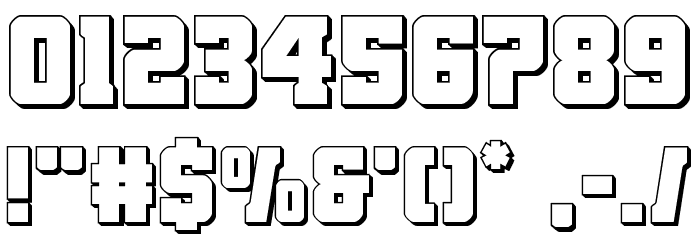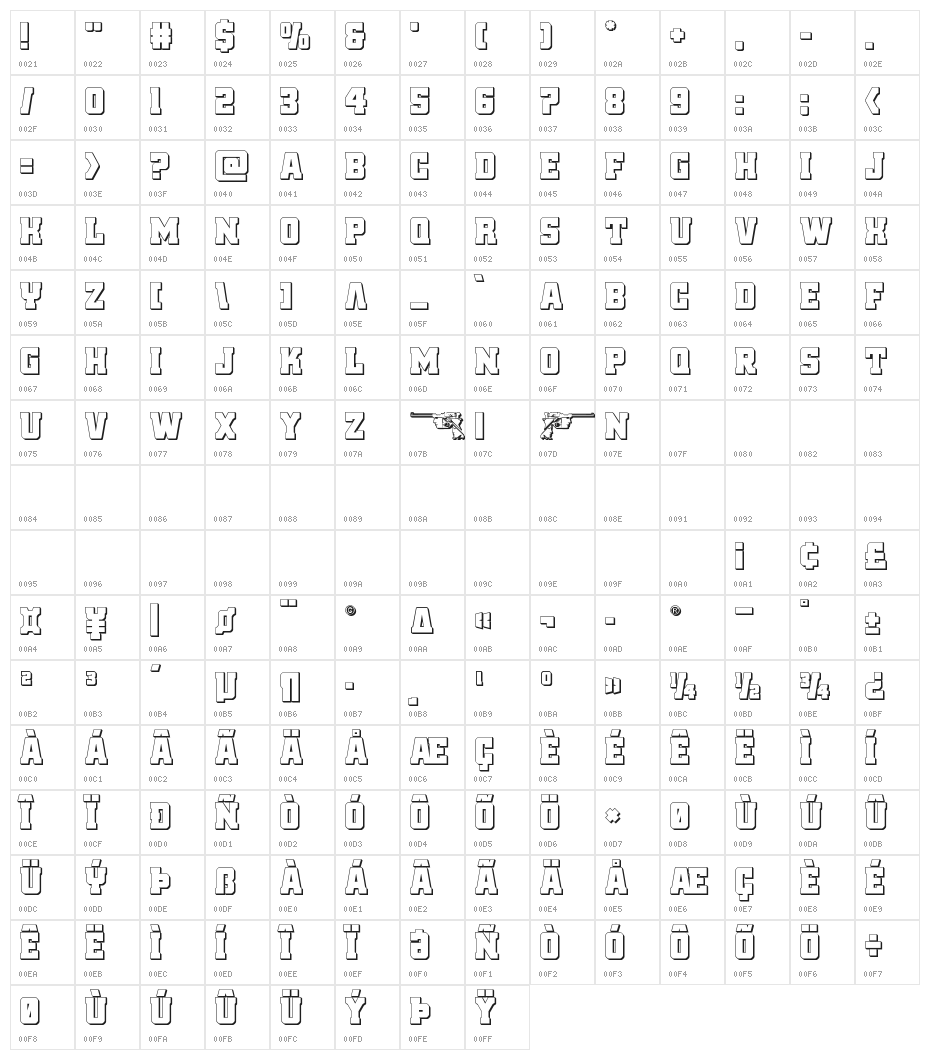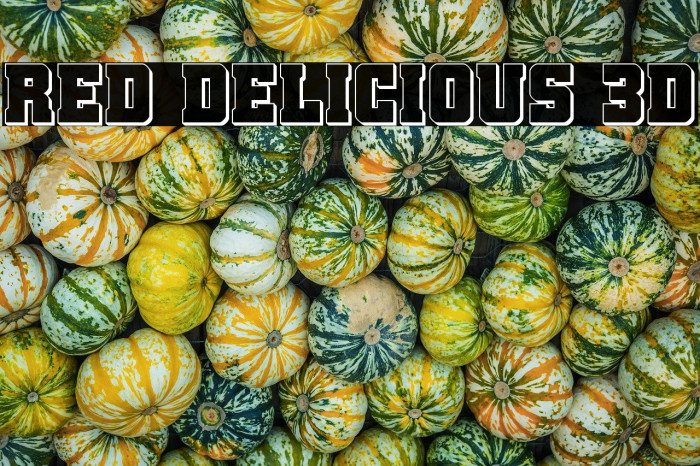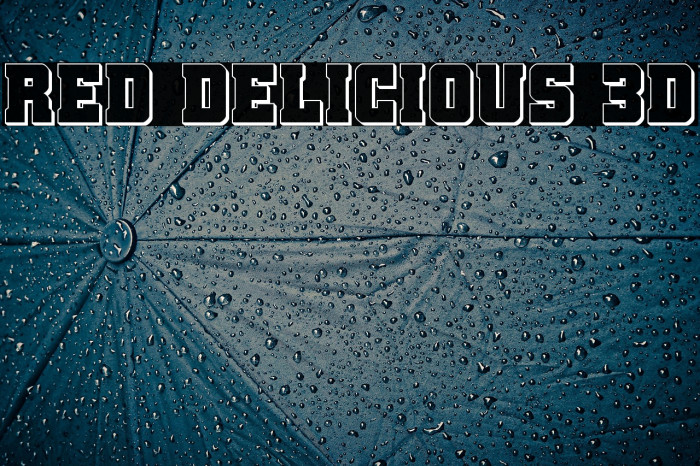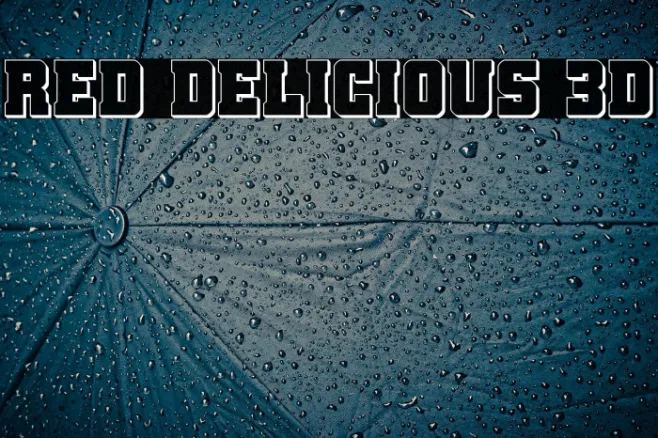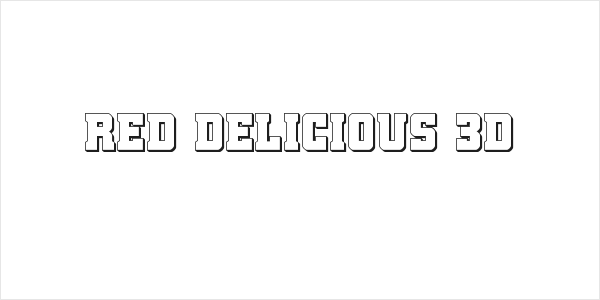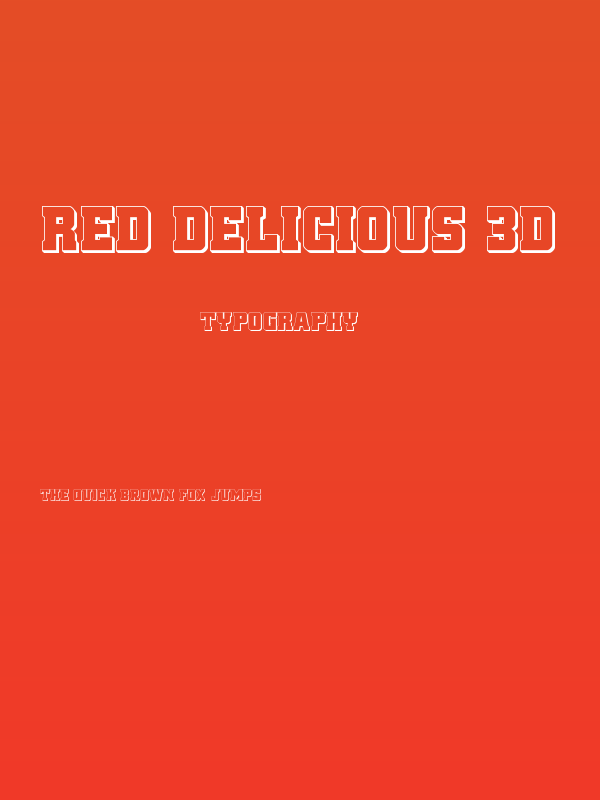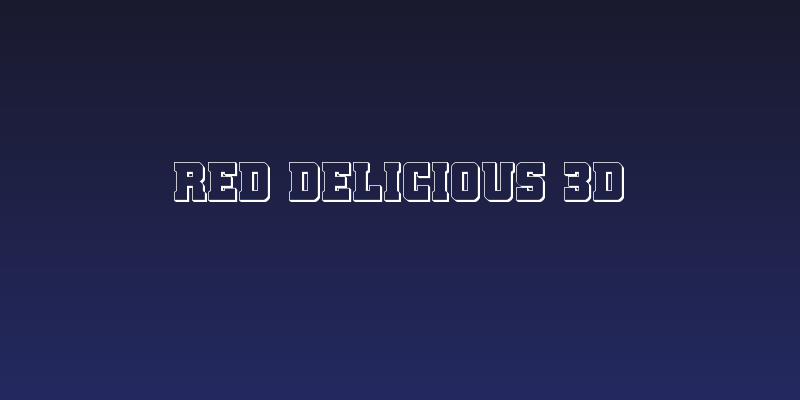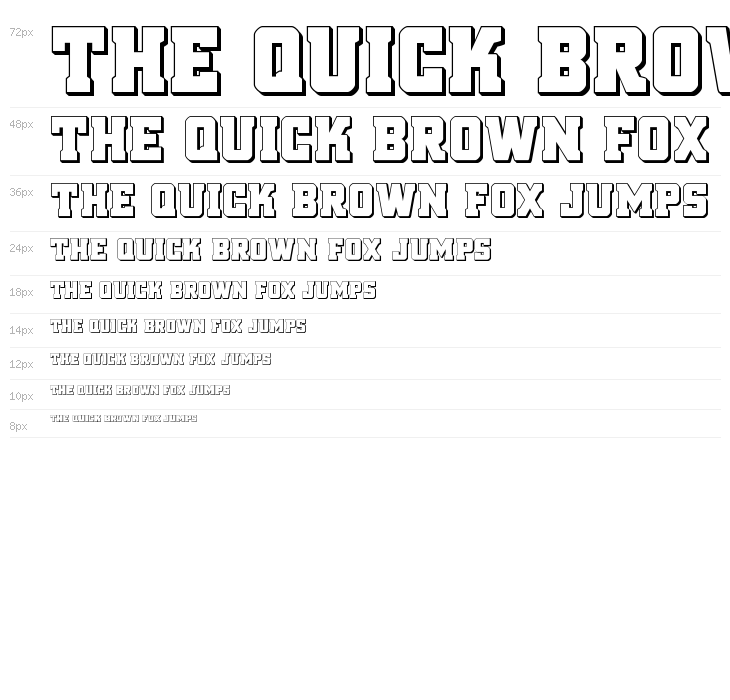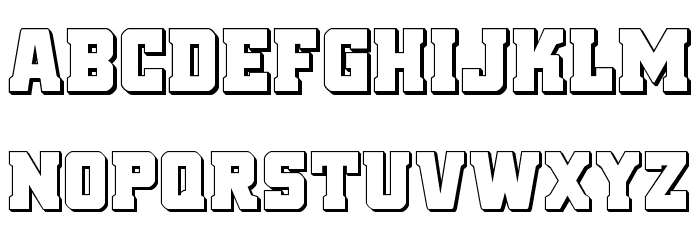
Red Delicious 3D Font
Red Delicious 3D Description
This font features a bold, three-dimensional style with a strong, impactful presence. The characters are outlined with a thick black border, giving them a shadowed effect that enhances their 3D appearance. The letters are uppercase, with a uniform height and width, contributing to a cohesive and structured look. The numbers and special characters follow the same design principles, ensuring consistency across all glyphs. The font's geometric shapes and clean lines make it suitable for attention-grabbing headlines and titles. Its playful yet robust design is ideal for projects that require a bold statement.